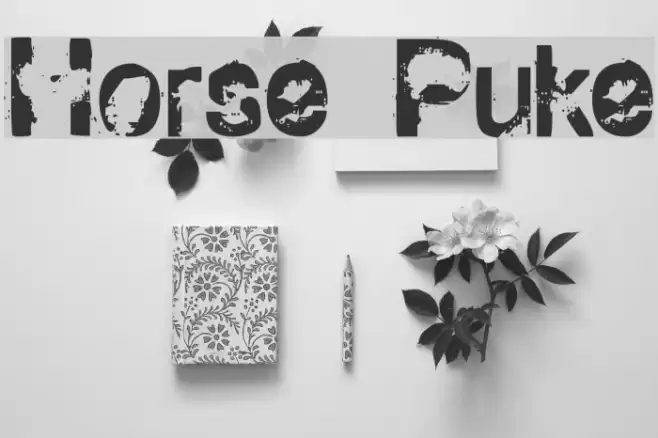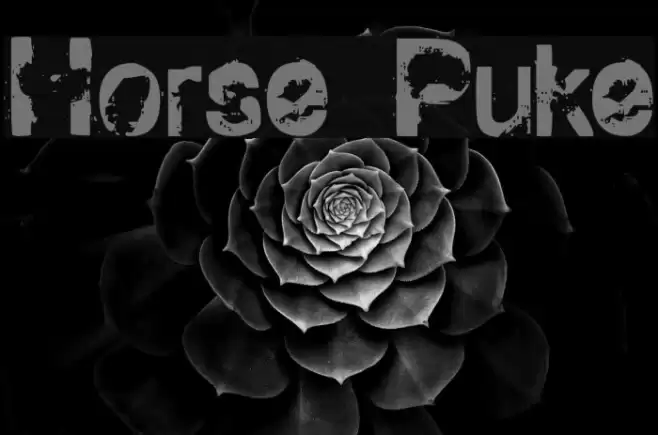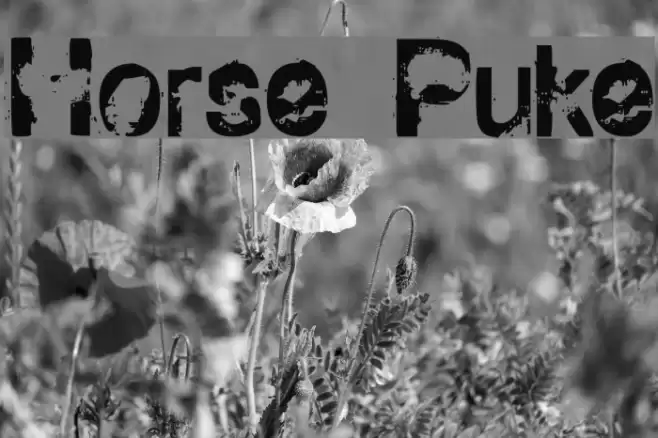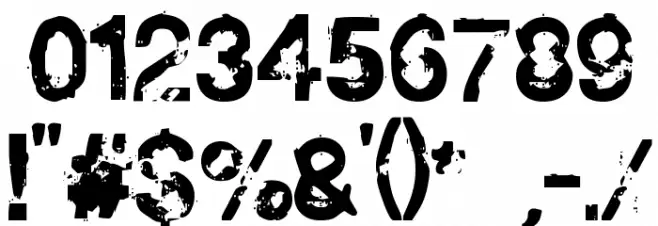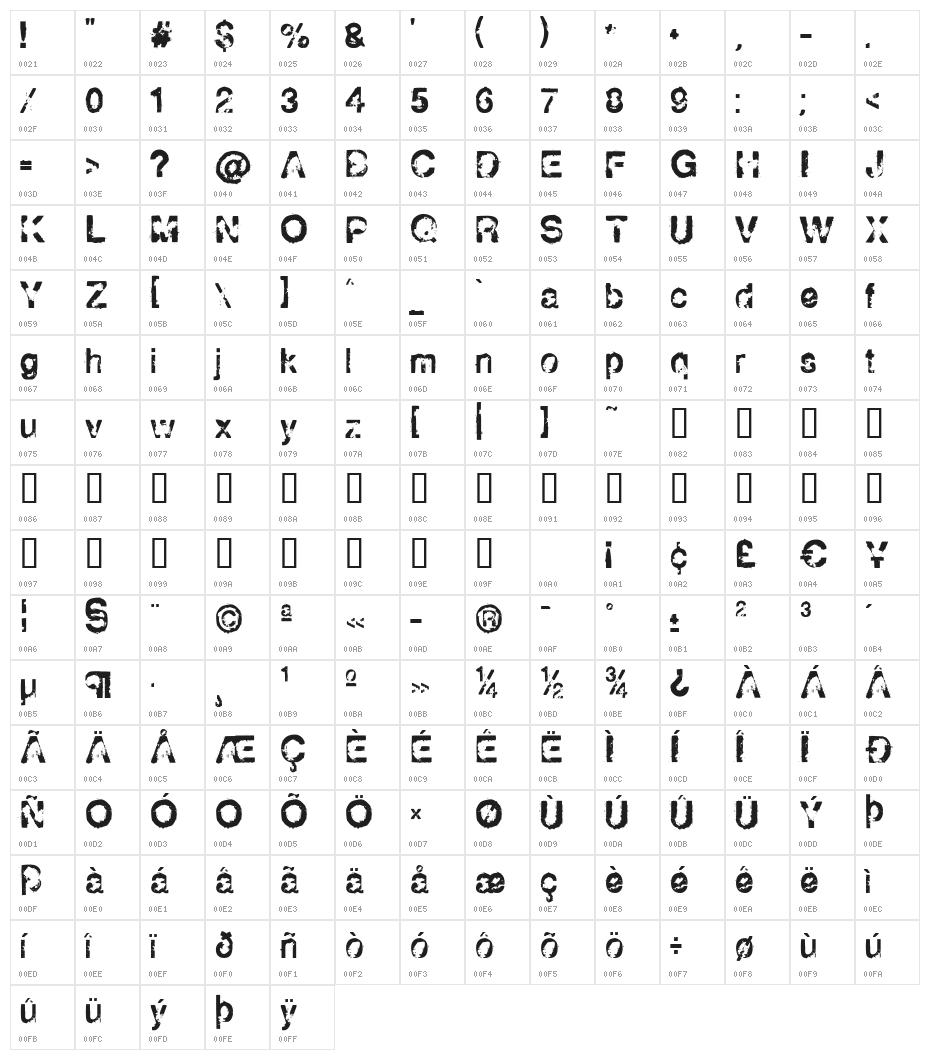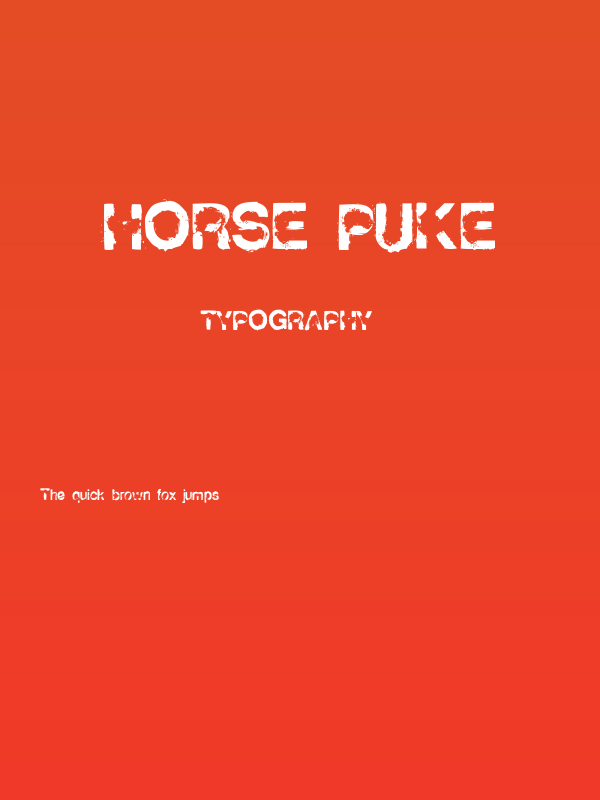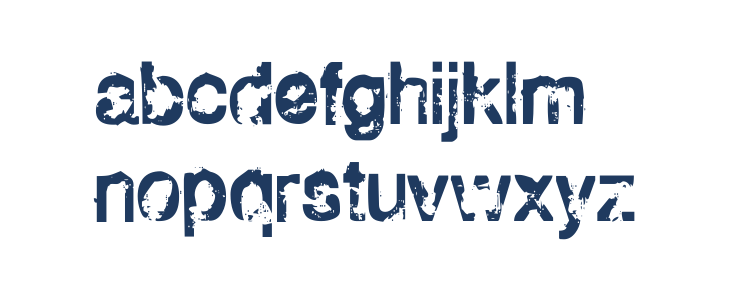
Horse Puke Font
Horse Puke Description
This font features a distressed and grungy style, characterized by its rough, textured appearance. The letters appear as if they have been eroded or weathered, giving them a unique, worn-out look. The uppercase and lowercase letters maintain a consistent style, with bold strokes and irregular edges that add to the overall rugged aesthetic. Numbers and special characters follow the same design, ensuring a cohesive appearance across all elements. This font's distinctive style makes it stand out, perfect for projects that require an edgy or rebellious feel.
A distressed, grungy font with a bold, weathered appearance from Decorative fonts.
- Proposed Projects: Ideal for album covers, posters, urban-themed designs, and branding that requires a gritty, rebellious touch.
- Overall Style: Grunge, Distressed
- Use Case: Headlines, Posters, Branding